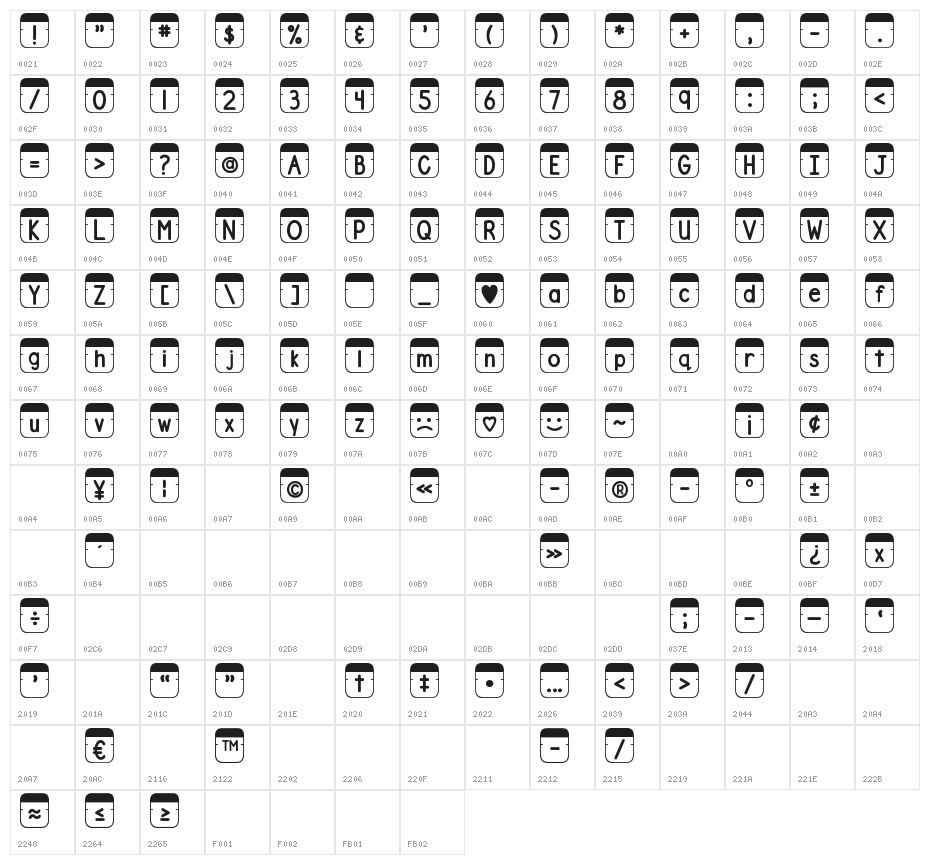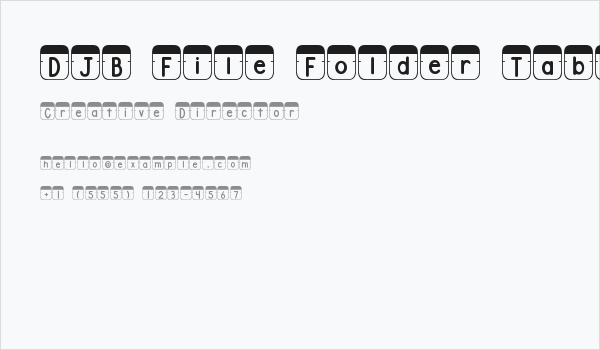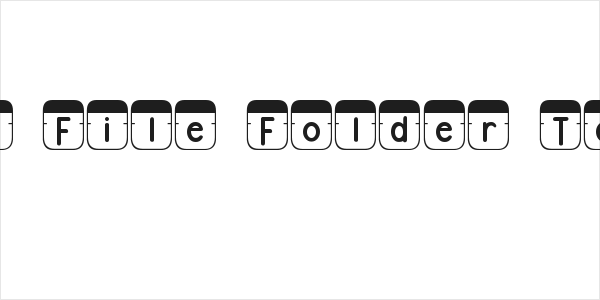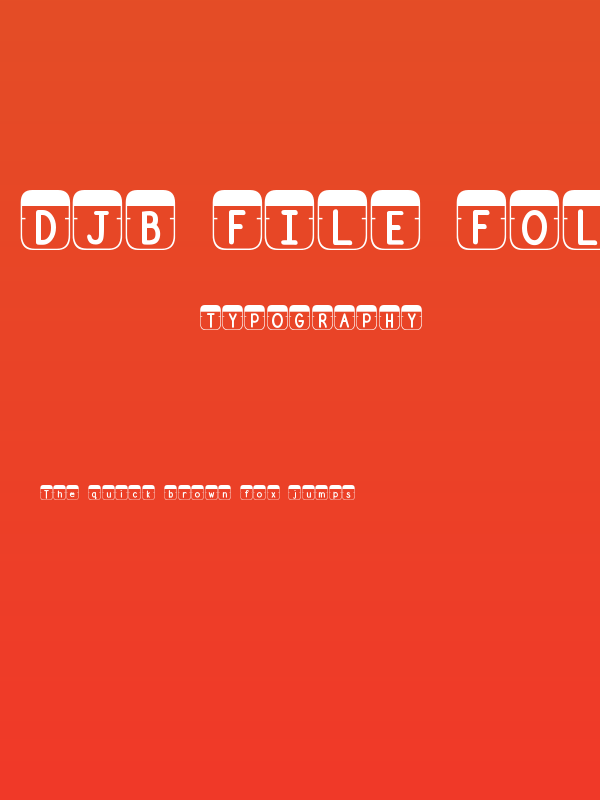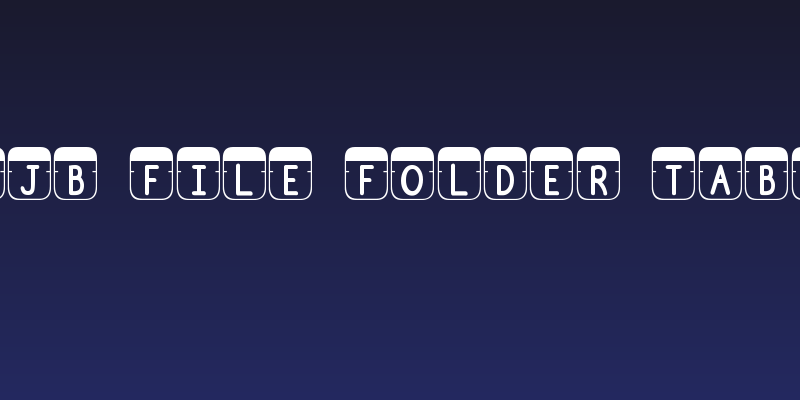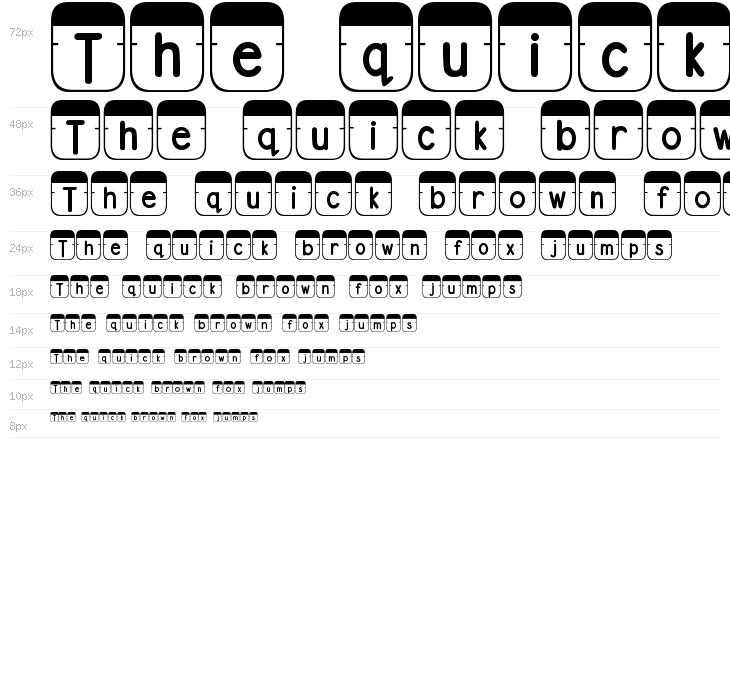
DJB File Folder Tabs Font
DJB File Folder Tabs Description
This font features a playful and rounded style, with each character enclosed in a rectangular tab-like shape. The letters are bold and have a uniform thickness, giving them a strong presence. The rounded corners of the tabs add a friendly and approachable feel, making it suitable for informal and creative projects. The font includes both uppercase and lowercase letters, numbers, and a variety of special characters, all maintaining the same tabbed design. The consistent spacing and alignment within the tabs ensure readability and a cohesive look across different characters.
| Use Case | Headlines, Logos, Labels |
| Proposed Projects | Ideal for educational materials, children's books, playful branding, and creative labels. |